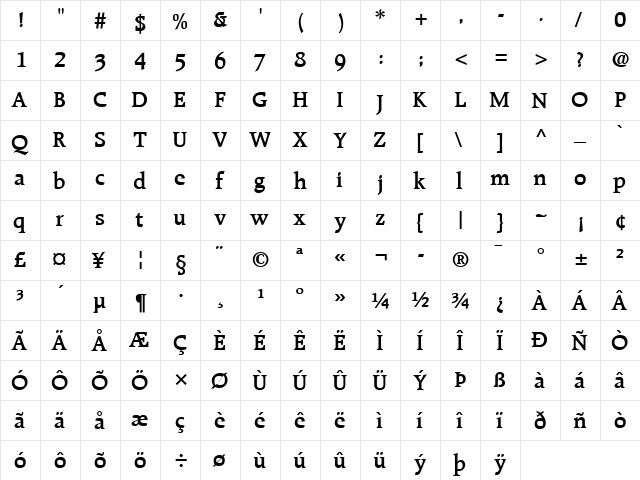
Raleigh LT Bold
Design Context for Raleigh LT Typeface
Raleigh LT is a composed and adaptable typeface that performs quietly and consistently across a wide range of design contexts. Its bold stroke weight gives it real presence on the page.
Pro Tip: Use Raleigh LT in both headline and body roles to test its range before committing to a single application.